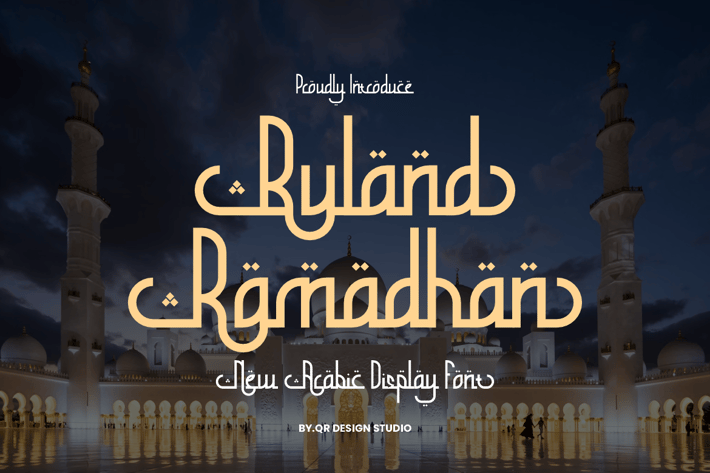
Buland Ramadhan - Arabic Font
Buland Ramadhan Font is a arabic and authentic display font.
The font is suitable for any branding project like poster, logo, ramadhan, and many more.